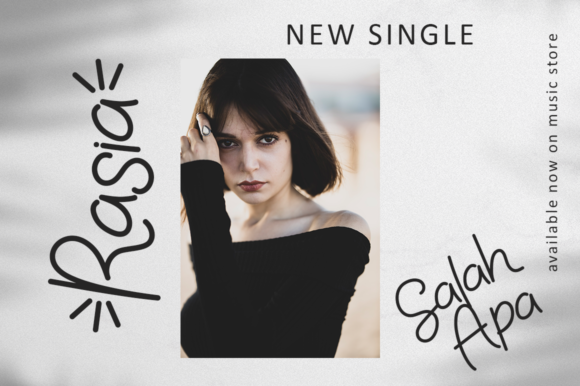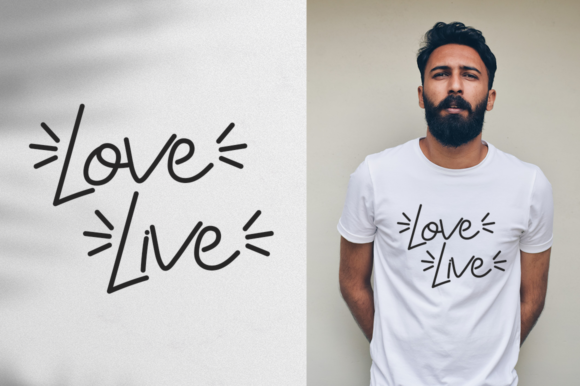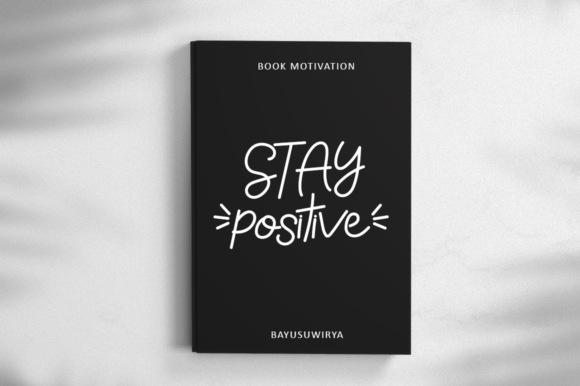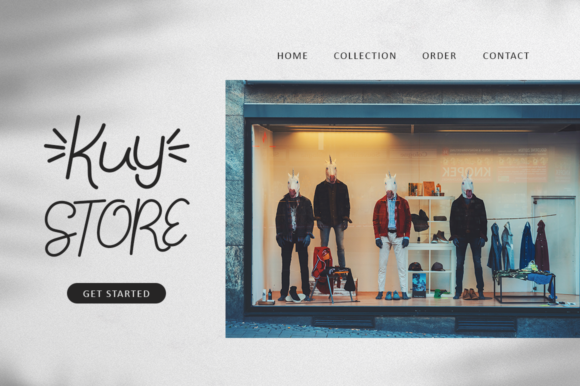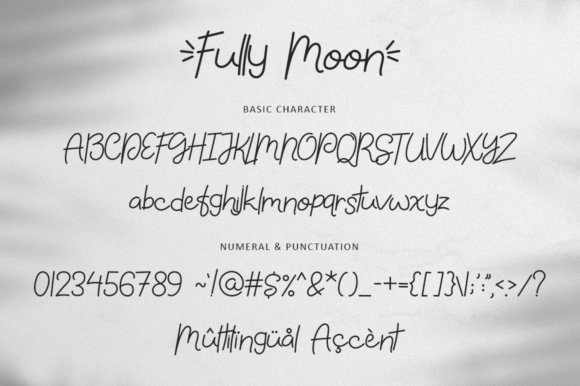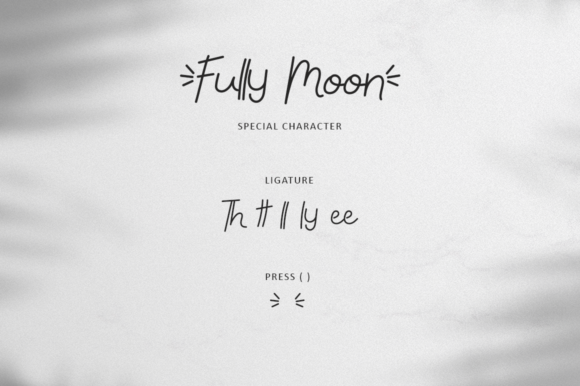
The Magic of Fully Moon Font: A Designer’s New Best Friend
I’ll never forget the time I was working on a project for a client’s wedding invitation suite. I had the perfect design concept, but I just couldn’t find the right font to bring it all together. The client wanted something sweet, friendly, and elegant, but not too formal. I spent hours scouring the internet, trying out font after font, until I finally stumbled upon Fully Moon Font. It was like a breath of fresh air – the perfect blend of whimsy and sophistication.
I’ve had the pleasure of working with Fully Moon Font for several projects now, and I must say, it’s quickly become one of my go-to fonts. Here’s what I love:
- ✨ Sweet and friendly vibe: Fully Moon Font has a unique, handwritten quality that adds a touch of warmth to any design.
- ✅ Natural and unique style: The font’s organic feel makes it incredibly versatile and fitting for a wide range of designs.
- 💫 OpenType features: Fully Moon Font comes with a range of OpenType features, including glyphs and stylistic alternates, which allow for endless creative possibilities.
Of course, no font is perfect, and there are a few quirks to be aware of:
- 🤔 Limited use in very formal designs: While Fully Moon Font is incredibly versatile, it may not be the best choice for very formal or corporate designs.
- ⚠️ Some characters may require manual kerning: As with any font, some characters may require manual kerning to achieve optimal results.
The Story Behind Fully Moon Font
Fully Moon Font was designed by a talented typographer who’s passionate about creating unique, handwritten fonts. The story goes that the designer was inspired by the beauty of the full moon and wanted to capture its essence in a font. And so, Fully Moon Font was born – a sweet, friendly font that’s perfect for a wide range of designs.
| Font Name | Fully Moon Font |
| Author | illushvara |
| What type of designs is Fully Moon Font best suited for? | Fully Moon Font is incredibly versatile and can be used for a wide range of designs, from wedding invitations to social media graphics. |
| Does Fully Moon Font come with OpenType features? | Yes, Fully Moon Font comes with a range of OpenType features, including glyphs and stylistic alternates. |
| Is Fully Moon Font easy to read? | Yes, Fully Moon Font is designed to be easy to read, making it perfect for body text and headlines. |